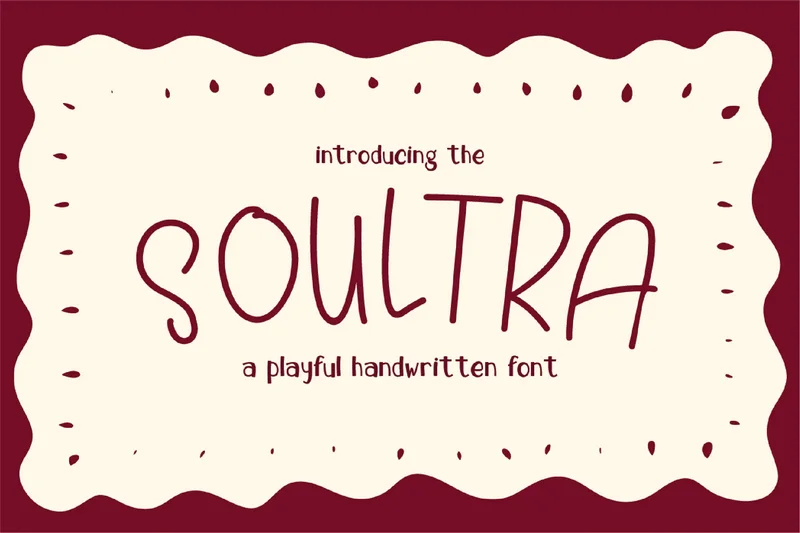
Soultra – Handwritten Font
Soultra is a fun and creative font with a bright, youthful spirit. Its quirky letterforms and smooth, friendly shapes make it perfect for children’s books, crafts, games, and playful branding. Soultra brings a sense of curiosity and joy to every design, making it perfect for projects full of imagination!